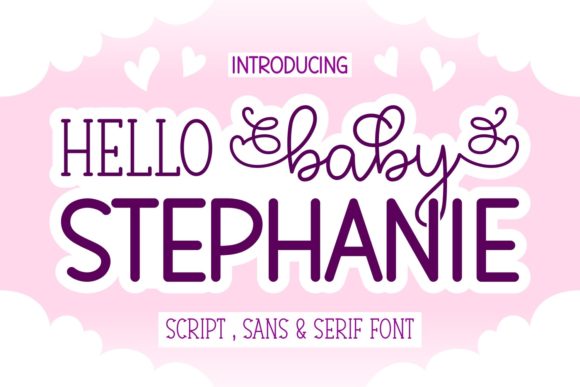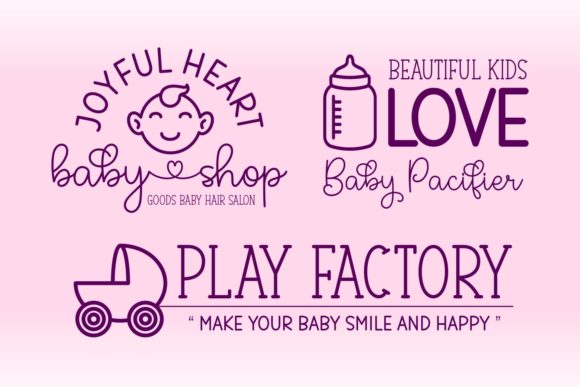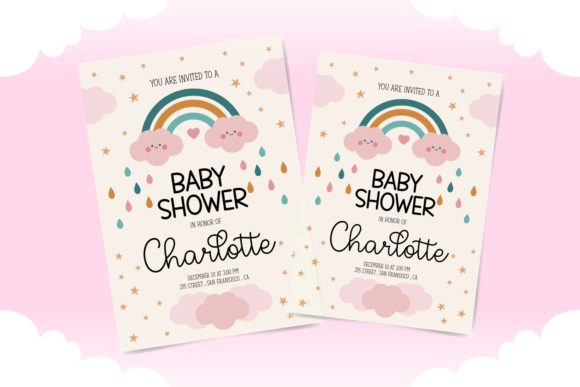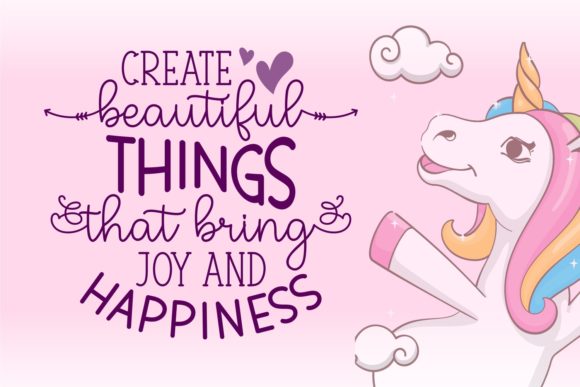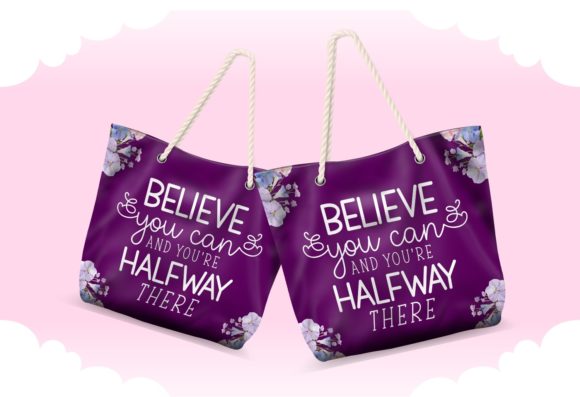
Hello Baby Stephanie Font
Hello Baby Stephanie is a lovely and versatile trio font (sans serif, serif, handwritten). This font is neatly crafted and highly detailed. Hello Baby Stephanie is PUA encoded which means you can access all glyphs and swashes with ease!